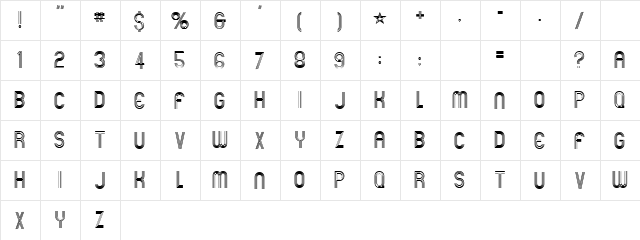
American Xpress Regular
Design Context for American Xpress Typeface
American Xpress offers clean, dependable letterforms without strong stylistic allegiance, making it a practical choice for designers who need flexibility.